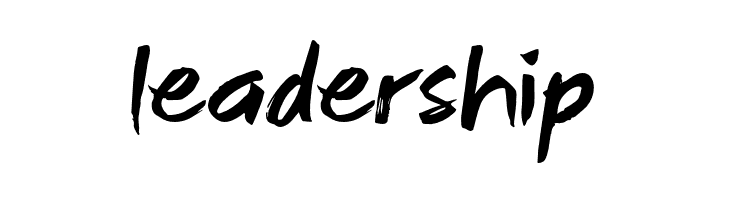
• Bailey
An elegant and flowing script font with ornate uppercase letters and graceful lowercase forms.
• Bailey Bowers
A casual, handwritten font with a playful and informal style.
• Bailey Script
A flowing, cursive script font with elegant loops and swashes.
• BaileysCar-Regular
A bold, fiery font with dynamic flame-like accents.
• BaileyScript
A modern, elegant script font with flowing, cursive characters.
• Bailiry [Demo]
A flowing, cursive font with elegant, interconnected strokes.
• Baillando
A bold, expressive script font with flowing, cursive letters.
• BailleSimpsonDEMO
A bold, expressive font with a hand-painted, brush-like appearance.
• Baines
A bold, flowing script font with elegant curves and playful flourishes.
• Baise Regular
A bold, geometric font with a 3D effect and vintage-modern appeal.
• Baiser Italic
A bold, italicized font with a futuristic, three-dimensional effect.
• Baiser Regular
A bold, futuristic font with a 3D effect and geometric styling.
• Baiskey
A playful and elegant cursive font with flowing, slender characters.
• Baisley
A graceful and elegant handwritten script with flowing, interconnected letterforms.
• Baisteach
A bold, high-contrast serif font with a classic yet modern style.
• Baisteach
A bold, high-contrast serif font with dramatic strokes and elegant curves.
• Baja
A geometric and modern font with angular edges and a futuristic style.
• Bajareczka
A whimsical and decorative font with intricate swirls and flourishes.
• Bajareczka Shadow
A bold, decorative font with a shadow effect and intricate flourishes.
• Bajawa Demo
• Baji Rounded Extra Bold
A bold, rounded font with a friendly and modern appearance.